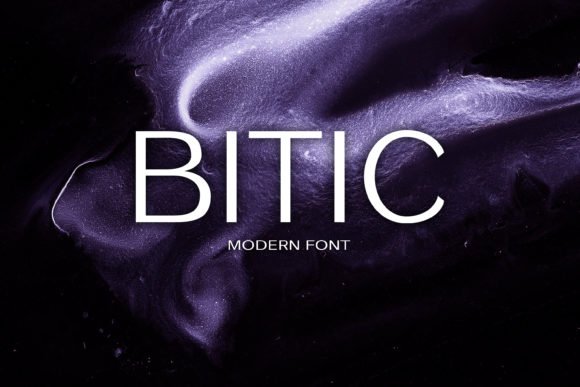
Discover the Timeless Elegance of Bitic Font
As designers, we’ve all been there – staring at a blank page, struggling to find the perfect font to bring our vision to life. It’s a moment of pure creative frustration, until suddenly, inspiration strikes. For me, it was the sight of a vintage sign on a quaint street corner, its bold letters radiating a sense of nostalgia and sophistication.
That’s when I discovered Bitic Font – a stunning sans serif font inspired by traditional sign painting, with a modern twist. Its clean and minimal design makes it perfect for modern designs, from logos to advertisements, and everything in between. The Bitic Font is a valuable addition to any designer’s toolkit, offering a unique blend of classic charm and contemporary flair.
Key Features of Bitic Font
- Font Family: Bitic is a modern sans-serif font family that includes 6 styles: Thin, Light, Regular, Medium, Bold, and Black.
- Character Set: Bitic Font supports a wide range of languages, including Latin, Cyrillic, Greek, and many others, with over 1000 glyphs.
- Unique Characteristics: Bitic Font features a clean and minimalist design, with a subtle rounded edge and a x-height that is optimized for readability.
Bitic Font Review
I recently had the chance to work with the Bitic Font, and I must say it’s been a mixed bag. On one hand, here are some things that work well: ✨
- Unique Character: The Bitic Font has a distinctive, futuristic look that can add a touch of edginess to your designs.
- OpenType Features: It supports a wide range of OpenType features, including ligatures, swashes, and contextual alternates.
- Font Pairing Options: The Bitic Font can be paired with a variety of other fonts to create visually interesting combinations.
On the other hand, here are some limitations I’ve encountered: ⚠️
- Limited Character Set: The Bitic Font has a relatively small character set, which may not be suitable for projects that require a wide range of languages or characters.
- Overly Aggressive Italic: The italic version of the font can be quite dramatic, which may not be suitable for all design contexts.
Overall, I think the Bitic Font has some great qualities, but it may not be the best choice for every project. It’s definitely worth considering for designs that need a bold, futuristic feel, but be aware of its limitations.
Tips for Getting the Most Out of Bitic Font
Use Bitic Font for headings and titles to add a touch of elegance and sophistication to your designs.
Pair Bitic Font with a sans-serif font for body text to create a clean and modern look.
Use Bitic Font for:
1. Branding and logos.
2. Business cards and resumes.
3. Marketing materials and brochures.
Alternatives to Bitic Font
Monserrat is a modern sans-serif font, designed to be highly legible. It is perfect for use in digital platforms, such as websites and mobile apps, due to its clean and minimalist design. Montserrat is a great alternative to Bitic Font as it also has a geometric feel, but with a more modern twist.
Open Sans is a popular sans-serif font, known for its simplicity and readability. It is a great choice for body text and is highly adaptable to different screen resolutions. Compared to Bitic Font, Open Sans has a more rounded feel, making it more suitable for use in a variety of contexts, from digital to print.
Lato is a sans-serif font with a modern, clean design. It is highly legible and has a subtle geometric feel, making it a great alternative to Bitic Font. Lato is perfect for use in digital platforms, such as websites and mobile apps, due to its high readability and versatility.
Inter is a sans-serif font, designed to be highly legible and adaptable to different screen resolutions. It has a geometric feel, similar to Bitic Font, but with a more modern and refined design. Inter is a great choice for use in digital platforms, such as websites and mobile apps, due to its clean and minimalist design.